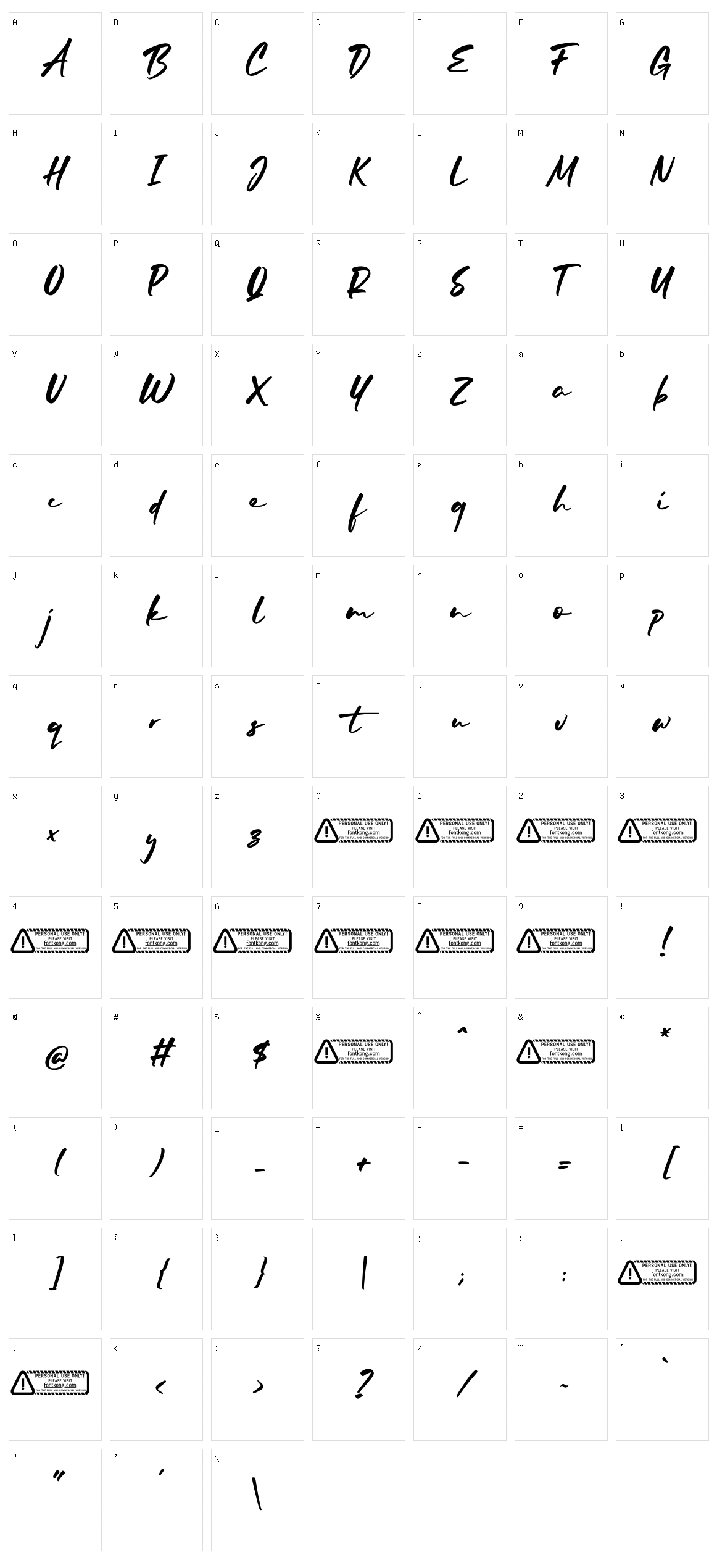
The free font Mellodia is carefully designed by Kong Font, showcasing a thoughtful balance of creativity and usability and falls under the Script font style. When you download the ZIP file, it contains only 56.23 KB of font files, making it lightweight and quick to download. Please review the license details below to understand permitted usage and distribution rights. If license information is not available, we recommend using this font for personal projects only or contacting the author directly for commercial usage permissions.